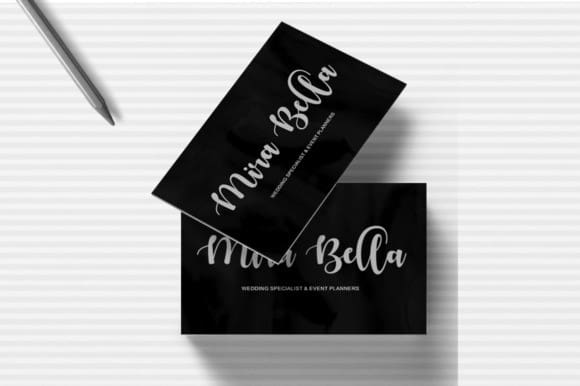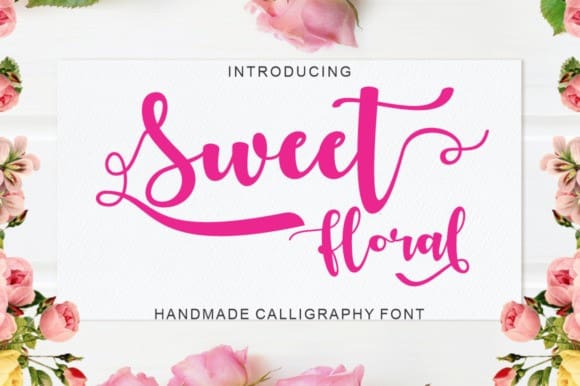
Sweet Floral Font
Sweet Floral Font, is a modern calligraphy font with the current handwriting style, this font is perfect for branding, wedding invites, magazines, mugs, business cards, quotes, posters, and more.